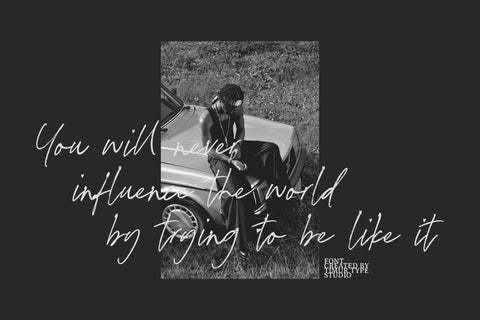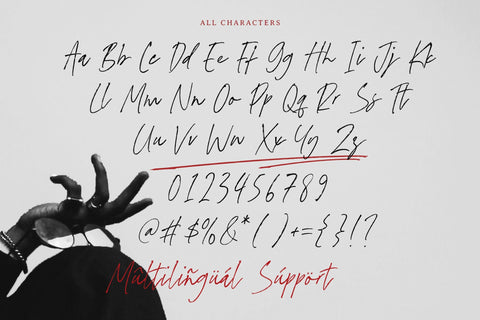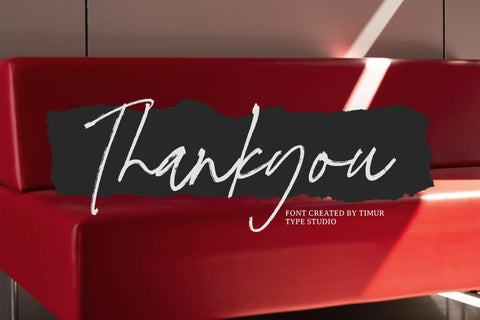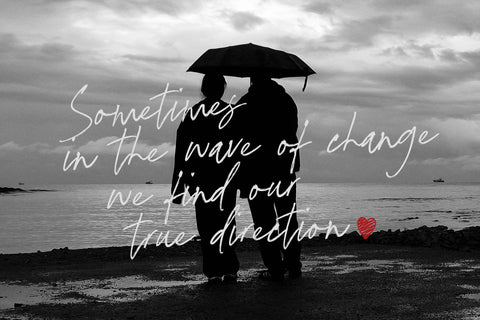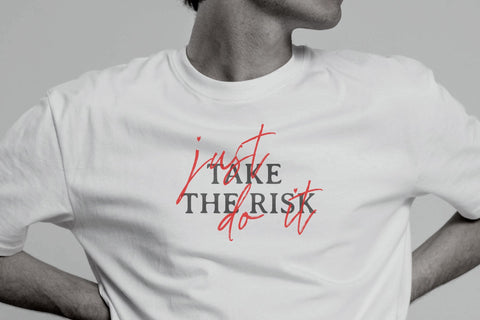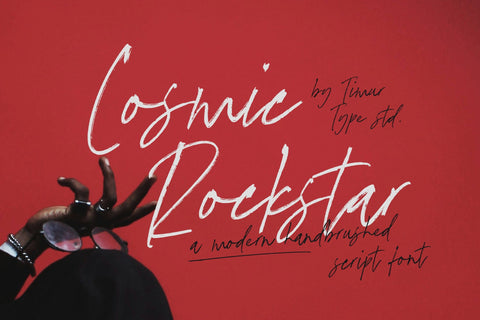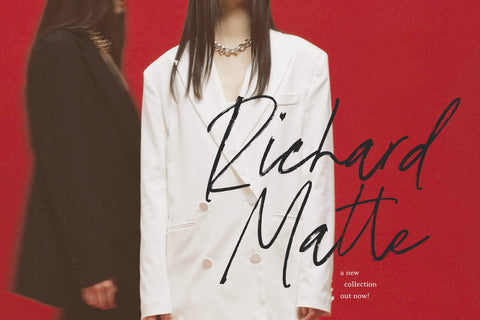
Cosmic Rockstar - Modern Handbrushed Script Font
Cosmic Rockstar is a Modern Handbrushed Script Font
This font is a modern handbrushed script font with bold, expressive strokes that blend energetic, casual style with a touch of cosmic flair. Its dynamic letterforms evoke a spirited, artistic vibe perfect for branding, posters, logos, and creative projects with an edgy and contemporary feel.
Cosmic Rockstar Font also supports multilingualism